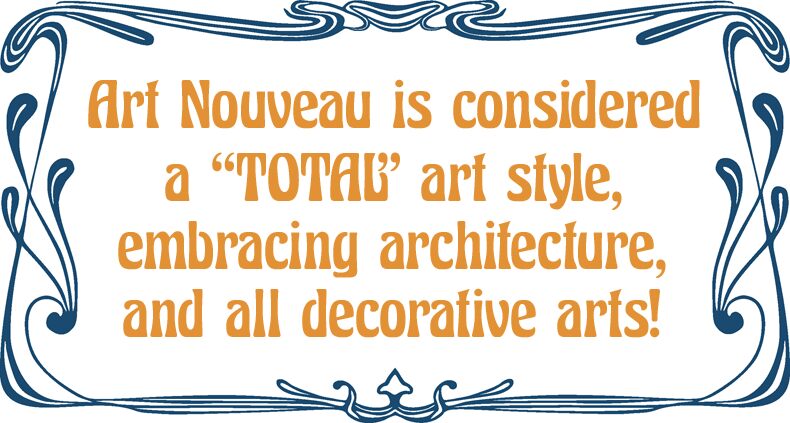
This Art Nouveau period text type is very well suited for headlines. It is beautiful and easily readable with that special 1920s touch. It comes with a selection of special characters to cover languages like German, French, and Swedish too. The font is public domain, free for all uses, commercial and private.
Excalibur Nouveau Medium
This old and beautiful Art Nouveau font was revived by Typo-Graf in 2015. Share and enjoy!